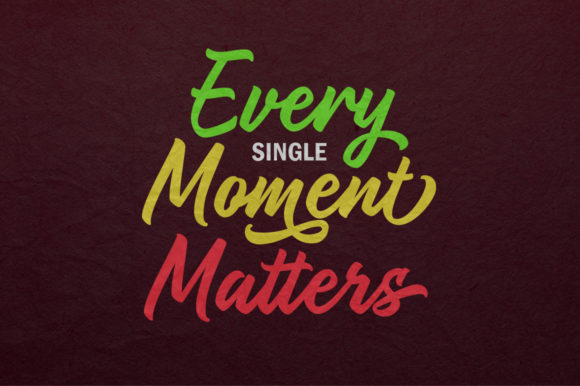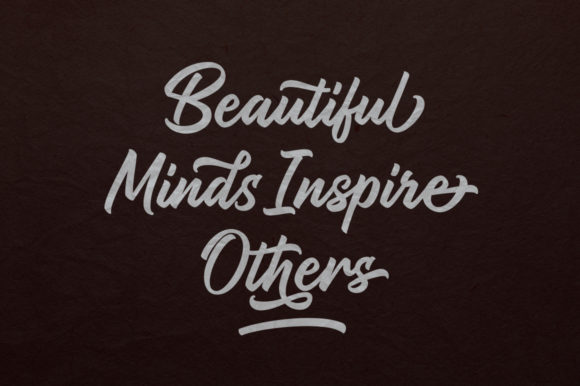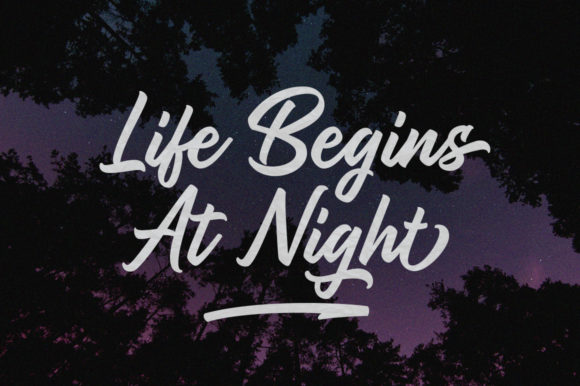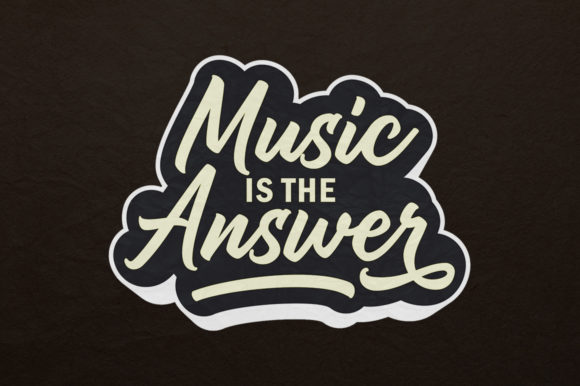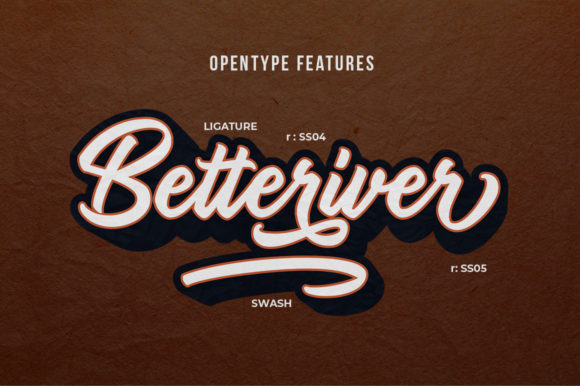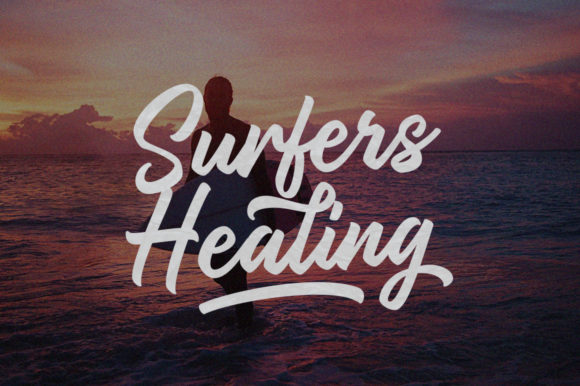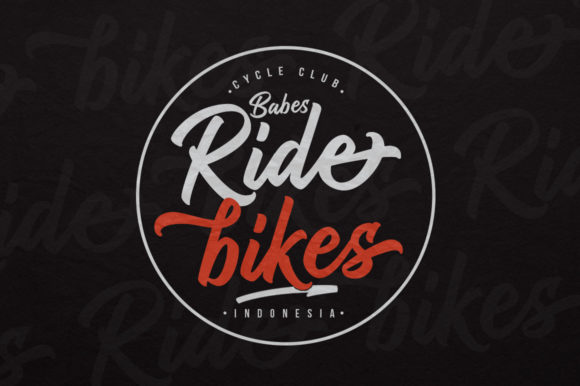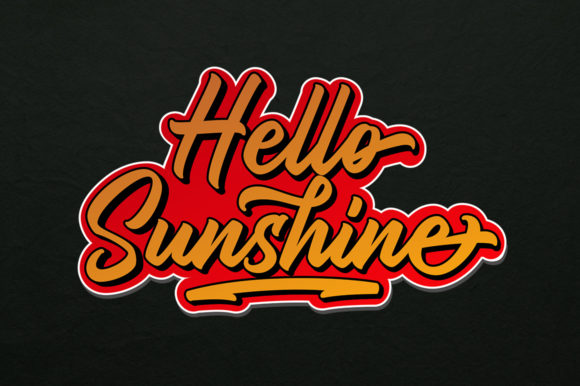
HomeScript FontsCentral Point Font Script Fonts Central Point Font FacebookXPinterestWhatsApp Central Point Font Poster 2 Central Point Font Poster 3 Central Point Font Poster 4 Central Point Font Poster 5 Central Point Font Poster 6 Central Point Font Poster 7 Central Point Font Poster 8 Central Point Font Poster 9 About Central Point Font Central Point is a bold handwritten font. Its unique look will take your projects to the next level! DOWNLOAD ON CREATIVE FABRICAThis font is sold and delivered by Creative Fabrica. Font Canyon may earn a commission if you buy through this link. People also explored Tropic Garden Font String Bean Skinny Font Vandella Font Wishlist Font Farmhouse Font Simple Handmade Font Filmotype Royal Semicondensed Off War Octologist Font 410 0 TagsCentral Point Font Previous articleNature FontNext articleStrakle Font LEAVE A REPLY Cancel reply Comment: Please enter your comment! Name:* Please enter your name here Email:* You have entered an incorrect email address! Please enter your email address here Website: Save my name, email, and website in this browser for the next time I comment. Personal Use Free Hello December Personal Use Free Read more about this font Dolce Vita Personal Use Free Read more about this font Green Farmhouse Personal Use Free Read more about this font Penelope Brush Script Font Personal Use Free Read more about this font BLOG Top 10 Handwritten Fonts That Elevate Your Designs Top 10 Handwritten Fonts That Will Elevate Your Designs Handwritten fonts bring a warm, personal touch to every creative project. Whether you're designing logos, invitations,... How to Cut Any Font on Cricut: Convert a Font to SVG (Free) Modern Sans-Serif Fonts That Brands Love in 2025 Free Fonts Risk: Why Free Fonts Can Be Dangerous for Designers